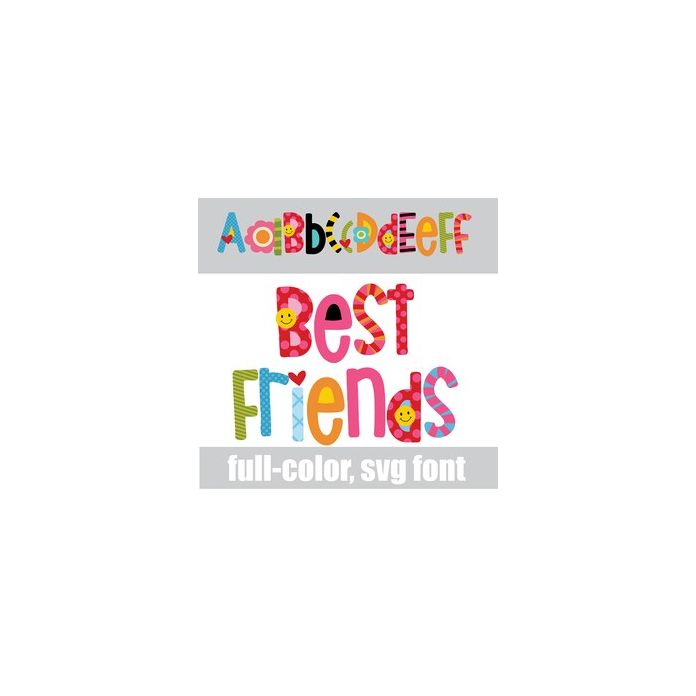
This full-color font is a crafty font with bold colors, features happy faces, flowers, and hearts. There is an alt case w/ additional colors you can access through your system or Silhouette's glyph map.